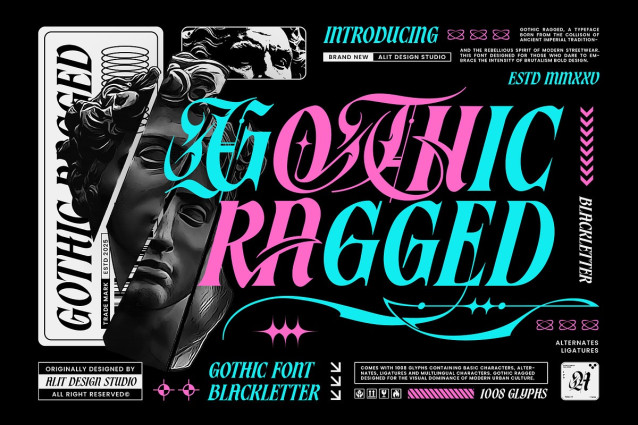
Gothic Ragged Font
Gothic Ragged Font a typeface born from the violent collision of ancient imperial tradition and modern brutalist streetwear.Gothic Ragged is not just a font; it is a typographic rebellion. It takes the historic density of classic Blackletter and injects it with the speed and aggression of urban culture. Designed with a distinct italicized stance, this font carries a forward momentum that feels fast, sharp, and unapologetic. The characters are sculpted with razor-sharp terminals and intricate, thorn-like swashes that evoke the feeling of twisted iron and gothic architecture.
Perfect for designs that demand dominance, Gothic Ragged fits seamlessly into the worlds of high-end streetwear, heavy metal aesthetics, Y2K acid graphics, and avant-garde branding. Whether you are designing a band logo, a distinct clothing drop, or a poster that screams from the walls, this font provides the visual impact you need.